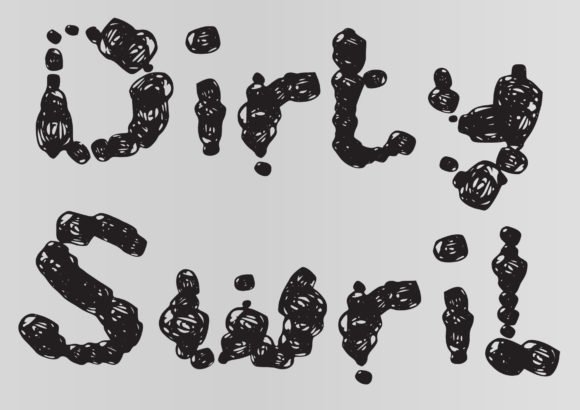
Unleash Your Creativity with the Unapologetic Dirty Swirl Font
Have you ever stared at a blank page, searching for that spark of inspiration to bring your design to life? For many creatives, the perfect font can be the missing piece that sets their project apart. And that’s exactly where the Dirty Swirl Font comes in – a bold, rough swirling font that adds an unmistakable touch of originality to any design.
This unique display font is perfect for designers looking to add a bit of grit and edge to their work. With its unapologetic, swirling style, the Dirty Swirl Font is sure to grab attention and leave a lasting impression. Whether you’re working on a branding project, a poster, or a social media campaign, this font is a valuable addition to any designer’s toolkit.
- Unique Characteristics: The Dirty Swirl font features a distressed, hand-drawn design with a mix of rough and smooth textures, giving it a unique, edgy look.
- Font Style: Includes regular and bold font styles, with multiple swashes and ligatures for added flair.
Dirty Swirl Font Review
Overall, I have mixed feelings about the Dirty Swirl Font. It’s a unique and attention-grabbing font that can add a touch of edginess to any design project. ✨
- It’s perfect for creating a bold and eye-catching headline. The swirly design really grabs attention.
- The font is highly customizable, allowing you to adjust the size, color, and style to fit your project’s needs.
- It’s great for creating a sense of energy and movement, which can be perfect for projects related to sports, music, or action.
- ⚠️ It can be overwhelming to read in large blocks of text, making it best used for short quotes or headlines.
- ⚠️ The font’s swirly design can be distracting, especially for users with visual sensitivities.
- ⚠️ It may not be suitable for formal or professional projects, as it has a more playful and casual tone.
The Dirty Swirl Font is a great addition to any designer’s toolkit, but it’s essential to use it judiciously. While it’s perfect for creating attention-grabbing headlines, it can be overwhelming in large quantities. Use it sparingly and with caution, and you’ll get the best results.
The Dirty Swirl Font is ideal for creating eye-catching headlines and titles. Use it to add a touch of elegance and sophistication to your designs. Some common use cases include:
- Brand logos and marketing materials
- Photography and art projects
Remember to experiment with different font sizes and styles to get the most out of the Dirty Swirl Font.
Alternatives to Dirty Swirl Font
Great Vibes is a beautiful, handwritten font perfect for creating a relaxed and casual atmosphere. It’s ideal for use in headings, quotes, and other text where a personal touch is desired. Great Vibes has a more elegant and refined look compared to Dirty Swirl Font, which can be more rough and edgy.
Carolyna Pro is a modern, script font that works well for branding, packaging, and other design projects where a unique and stylish look is needed. It’s more polished and sophisticated than Dirty Swirl Font, making it suitable for a wider range of applications.
Pacifico is a beautiful, handwritten font that’s perfect for creating a beachy or tropical vibe. It’s ideal for use in headings, titles, and other text where a relaxed and casual atmosphere is desired. Pacifico has a more refined and elegant look compared to Dirty Swirl Font, which can be more rough and playful.
Alex Brush is a elegant, handwritten font that’s perfect for creating a sophisticated and refined atmosphere. It’s ideal for use in headings, titles, and other text where a personal touch is desired. Alex Brush has a more delicate and refined look compared to Dirty Swirl Font, making it suitable for a wider range of applications.